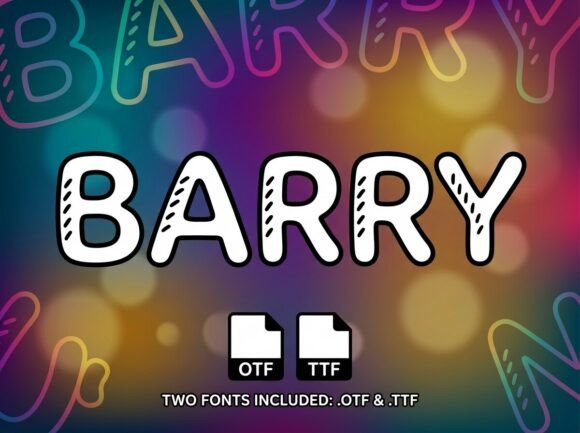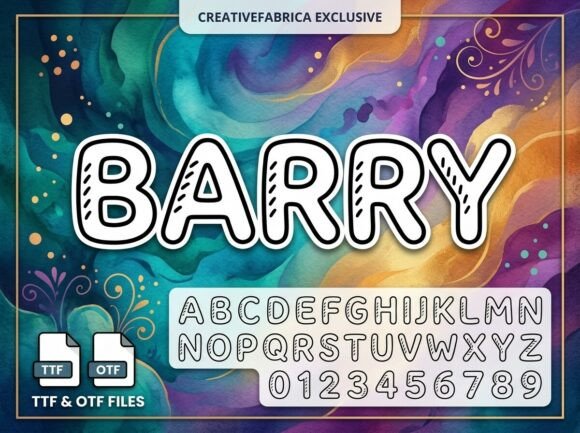
Introducing Barry Font: A Stunning Decorative Display Font
Are you tired of using the same old fonts for your designs? Do you want to make a statement and stand out from the crowd? Look no further than Barry Font, a unique and artistic decorative display font that’s sure to turn heads. In this article, we’ll take a closer look at what makes Barry Font so special and how it can elevate your designs to the next level.
Barry Font is a stunning decorative display font designed to be the center of attention. With its unique artistic elements and strong visual personality, this font is perfect for creators who want to break away from the ordinary. Whether you’re working on a bold headline, artistic logo, or creative packaging, Barry Font is the perfect choice.
Key Features of Barry Font
• Unique Artistic Elements: Barry Font features unique artistic elements that set it apart from other fonts. Each letter is carefully crafted to make a statement and add a touch of elegance to your designs.
• Strong Visual Personality: This font has a strong visual personality that’s sure to grab attention. Its bold and eye-catching design makes it perfect for headlines, logos, and other high-impact applications.
• Versatile: Despite its bold design, Barry Font is versatile enough to be used in a variety of applications, from bold headlines to artistic logos and creative packaging.
• Professional and Polished Finish: Barry Font maintains a professional and polished finish, making it perfect for designers who want to create high-quality designs.
Why Choose Barry Font?
So why choose Barry Font over other fonts? Here are just a few reasons:
• Stand out from the crowd: With its unique artistic elements and strong visual personality, Barry Font is sure to make your designs stand out from the crowd.
• Perfect for creative projects: Whether you’re working on a bold headline, artistic logo, or creative packaging, Barry Font is the perfect choice.
• Professional and polished finish: Barry Font maintains a professional and polished finish, making it perfect for designers who want to create high-quality designs.
Here are a few tips and tricks for getting the most out of Barry Font:
• Use it sparingly: Because Barry Font is a bold and eye-catching font, it’s best to use it sparingly. Use it for headlines and titles, and pair it with a simpler font for body text.
• Experiment with different colors: Barry Font looks great in a variety of colors, so don’t be afraid to experiment and find the perfect color for your design.
• Pair it with other fonts: Barry Font pairs well with a variety of other fonts, so feel free to experiment and find the perfect combination for your design.
Font Name Barry Font
Author Bluebird
In conclusion, Barry Font is a stunning decorative display font that’s perfect for designers and crafters who want to make a statement. With its unique artistic elements, strong visual personality, and versatile design, this font is sure to elevate your designs to the next level. So why wait? Purchase Barry Font today and start creating stunning designs that demand attention.